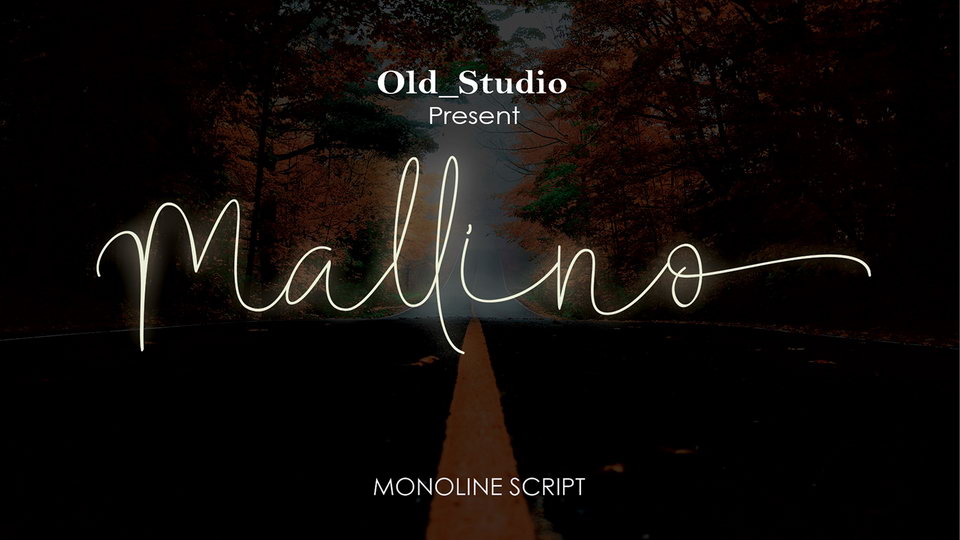
Download Mallino – a beautiful and modern handwritten font, ideal for use in a wide range of projects that need a clean yet natural look. This monoline cursive script is a great way to give your projects a refreshing and trendy look, all the while retaining romance and elegance.